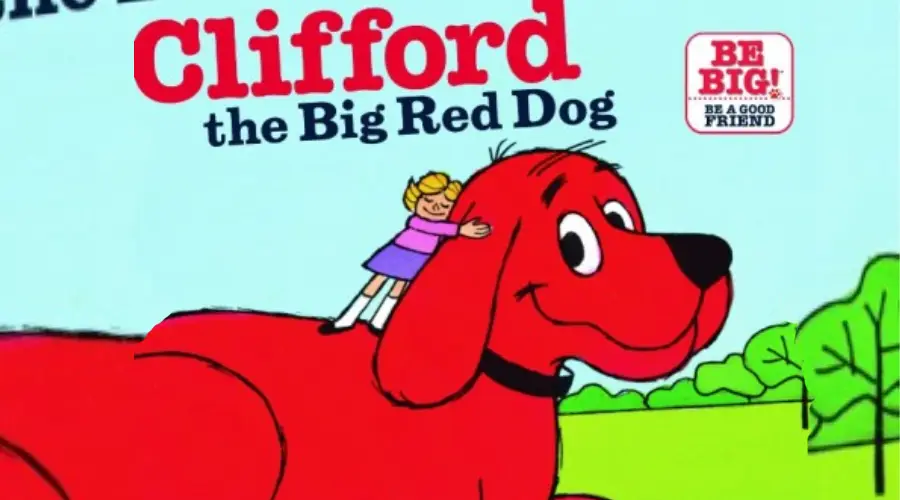
Clifford the Big Red Dog is a beloved children’s book series created by Norman Bridwell, featuring the adventures of a giant red dog named Clifford and his best friend, Emily Elizabeth. The font used in the branding and logo of Clifford the Big Red Dog has a playful yet classic vibe, often resembling typewriter-style fonts. While there isn’t an official font specifically named “Clifford the Big Red Dog Font,” the style is closely associated with bold, rounded, and slightly retro typefaces.
Similar Fonts to Clifford the Big Red Dog Font
Based on my findings, here are the most similar fonts that capture the essence of the Clifford logo:
ITC American Typewriter Pro Bold by ITC – This font is strikingly similar to the one used in the Clifford logo. It has a bold, typewriter-style design with rounded edges, making it a perfect match.
Egizio Std Bold by URW Type Foundry – This font also carries a similar retro and bold vibe, though it has a slightly more structured design compared to ITC American Typewriter.
These fonts are excellent alternatives for recreating the Clifford the Big Red Dog aesthetic in your designs.